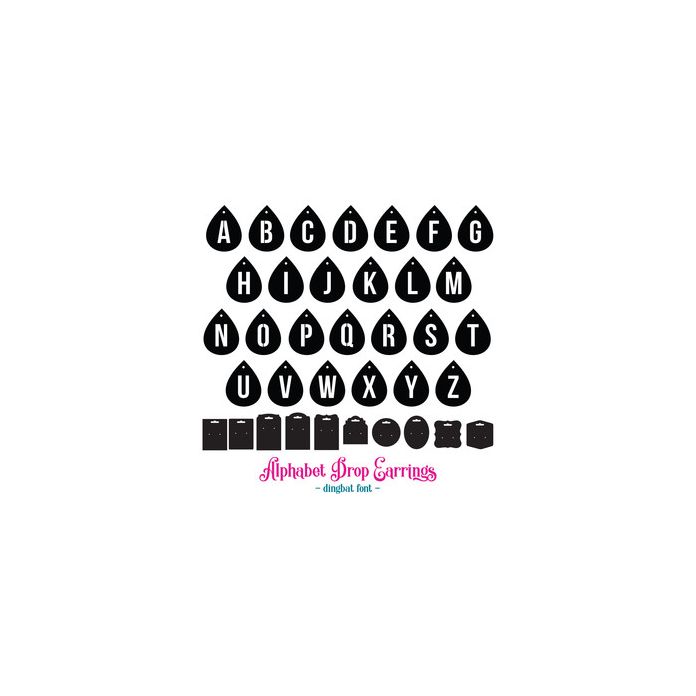
Alphabet / Initial Letter Drop Earrings Dingbat Font with 26 earrings shapes and backing cards to create your own handmade jewellery! (Can also be used as individual letter embellishments for a wide range of projects.)